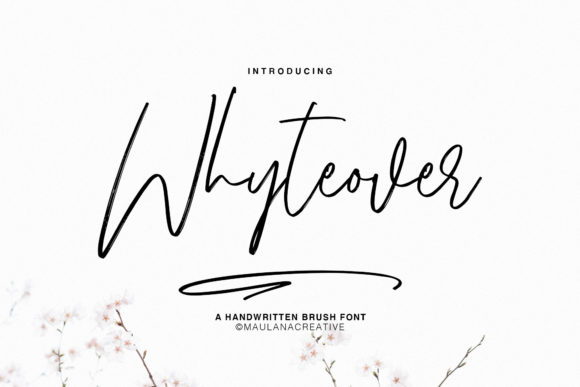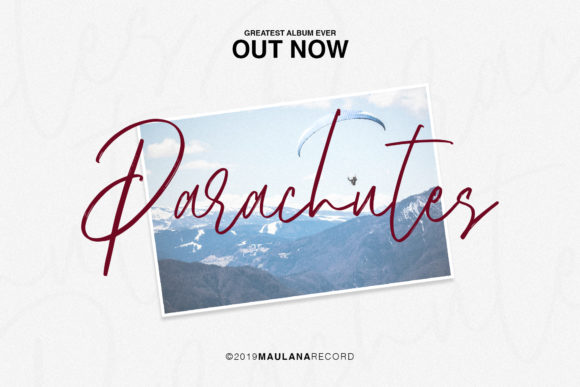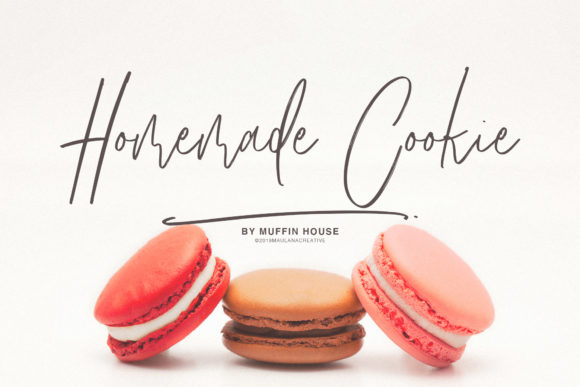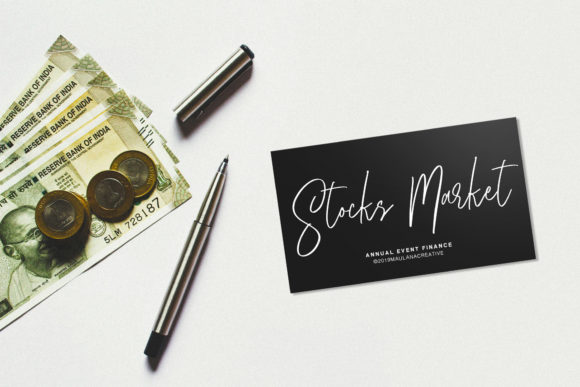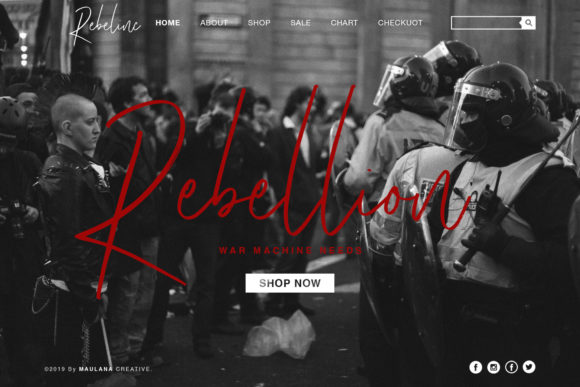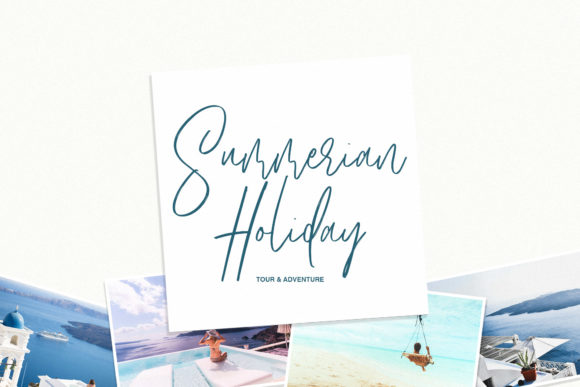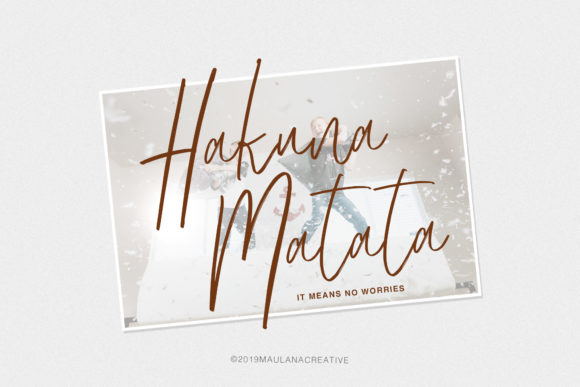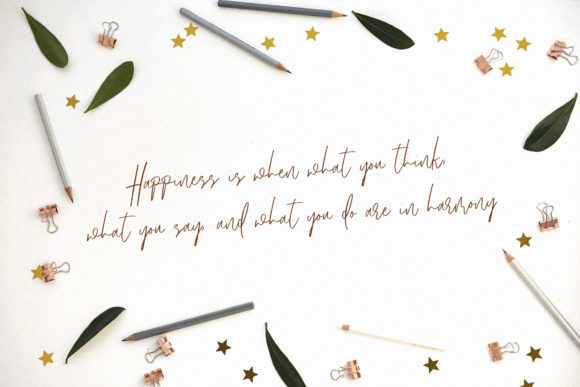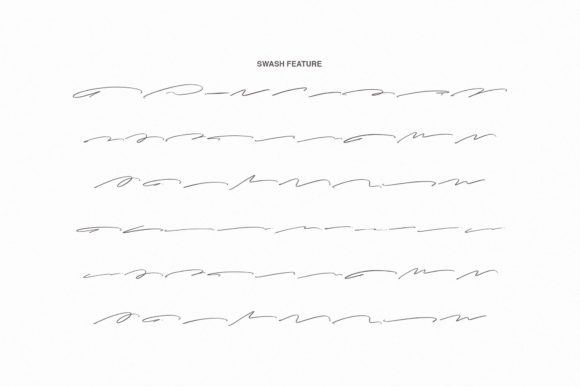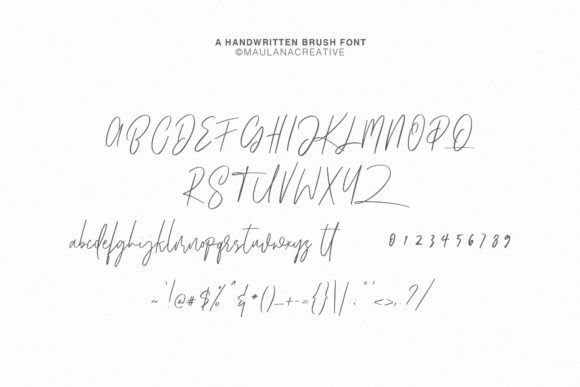
Whyteover Font
About Whyteover Font
Whyteover is a stunning script font with a naturally flowing style. Get inspired by its light and modern expression.